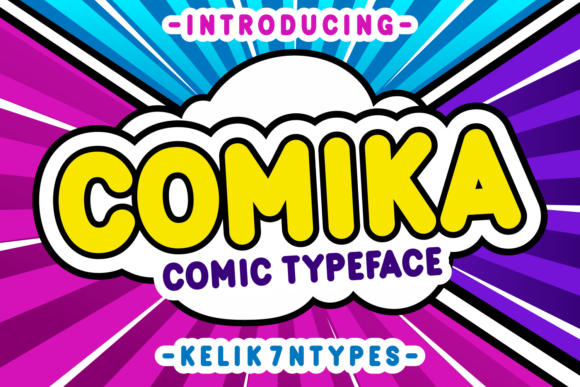
Introducing Comika Font: The Perfect Blend of Color and Boldness
Are you looking for a font that can add a touch of charm and creativity to your projects? Look no further than Comika Font! This delightful display font is designed to make a statement, with its unique blend of colorful and bold characteristics that are sure to make your work stand out. In this article, we’ll take a closer look at Comika Font, its features, and why it’s the perfect choice for your most creative projects.
What is Comika Font?
Comika Font is a charming display font that is perfect for use in a variety of creative projects. Its unique design combines bold and colorful elements, making it a standout choice for anyone looking to add some personality to their work. Whether you’re a graphic designer, artist, or simply someone who loves to dabble in creative projects, Comika Font is sure to impress.
Key Features of Comika Font
- Colorful: Comika Font features a range of bright and vibrant colors that are sure to catch the eye.
- Bold: With its bold and chunky design, Comika Font is perfect for making a statement.
- Charming: This font has a playful and charming personality that is sure to add a touch of whimsy to your projects.
- Versatile: Comika Font can be used in a variety of projects, from posters and flyers to social media graphics and more.
Why Choose Comika Font?
So why choose Comika Font for your creative projects? Here are just a few reasons:
- Uniqueness: Comika Font is a one-of-a-kind font that is sure to set your work apart from the crowd.
- Ease of use: This font is incredibly easy to use, even for those with limited design experience.
- Customization: Comika Font can be easily customized to fit your project’s specific needs.
Perfect for Creative Projects
Comika Font is perfect for use in a wide range of creative projects, including:
- Posters and flyers: Add a pop of color and personality to your posters and flyers with Comika Font.
- Social media graphics: Make your social media graphics stand out with this bold and colorful font.
- Logos and branding: Use Comika Font to create a unique and memorable logo for your business or brand.
- Art projects: Add a touch of whimsy and personality to your art projects with Comika Font.
Tips and Tricks
Here are a few tips and tricks to help you get the most out of Comika Font:
- Experiment with colors: Don’t be afraid to experiment with different colors and combinations to find the perfect look for your project.
- Play with font sizes: Comika Font looks great in a variety of font sizes, so don’t be afraid to experiment to find the perfect size for your project.
- Mix and match: Try mixing and matching Comika Font with other fonts to create a unique and interesting look.